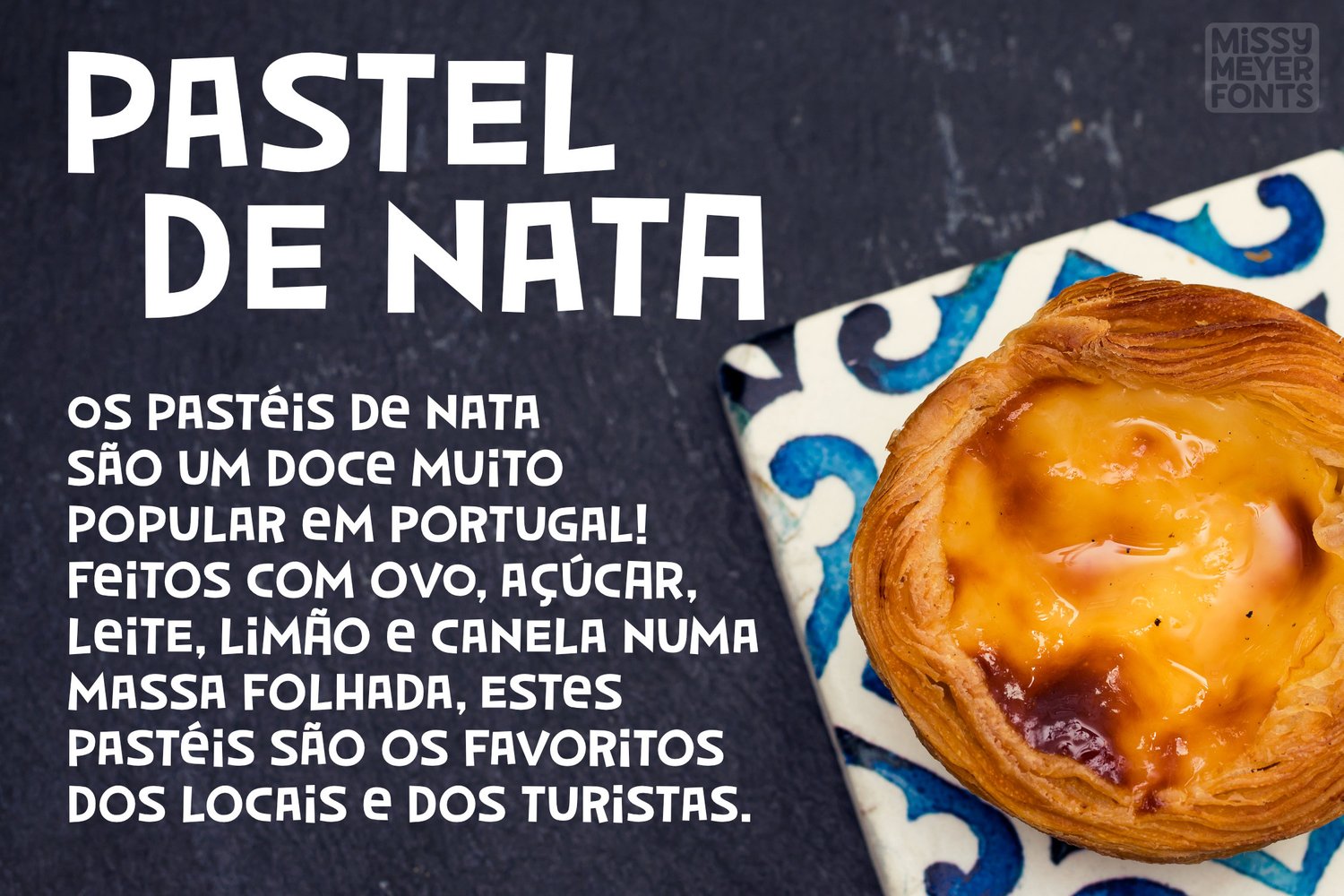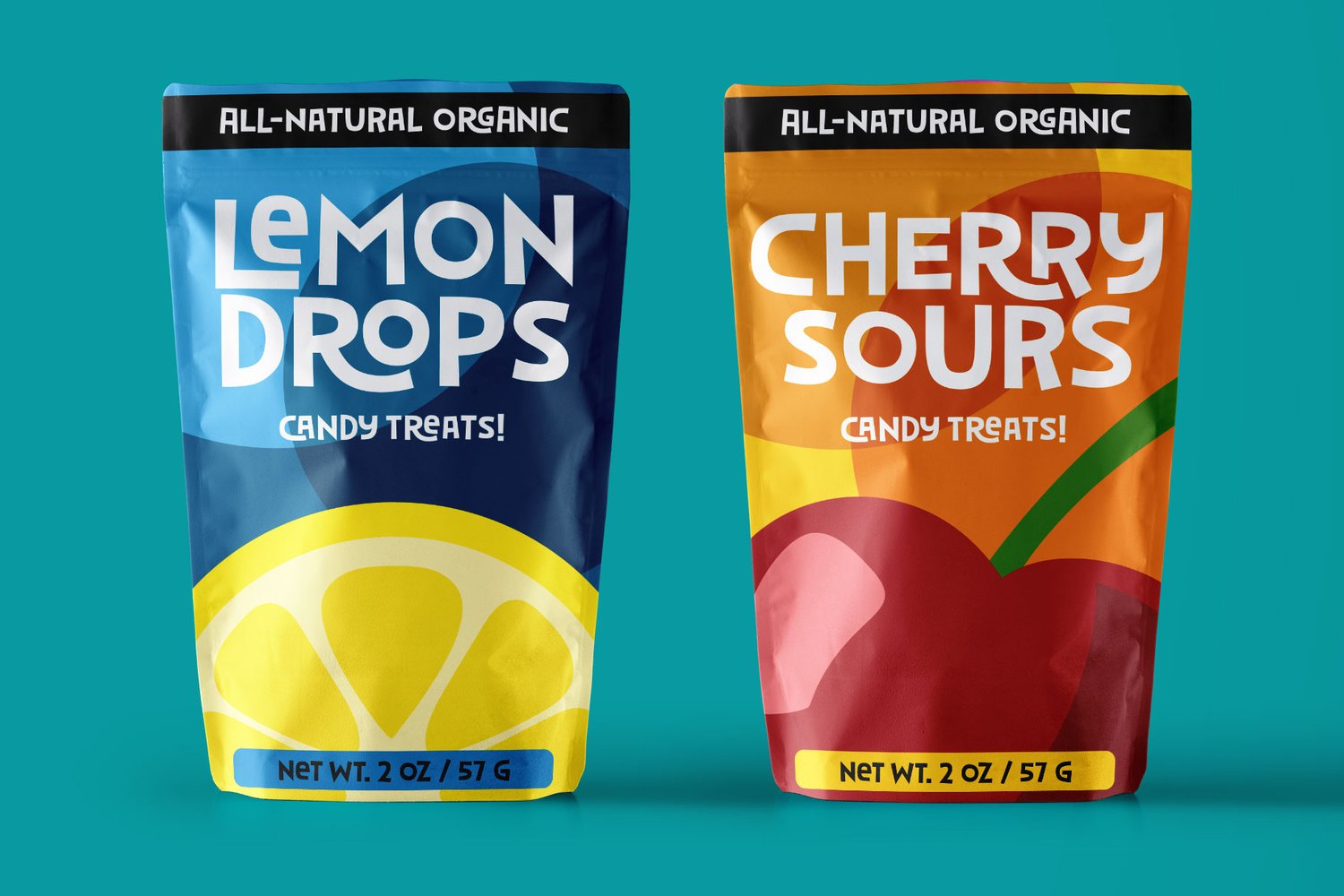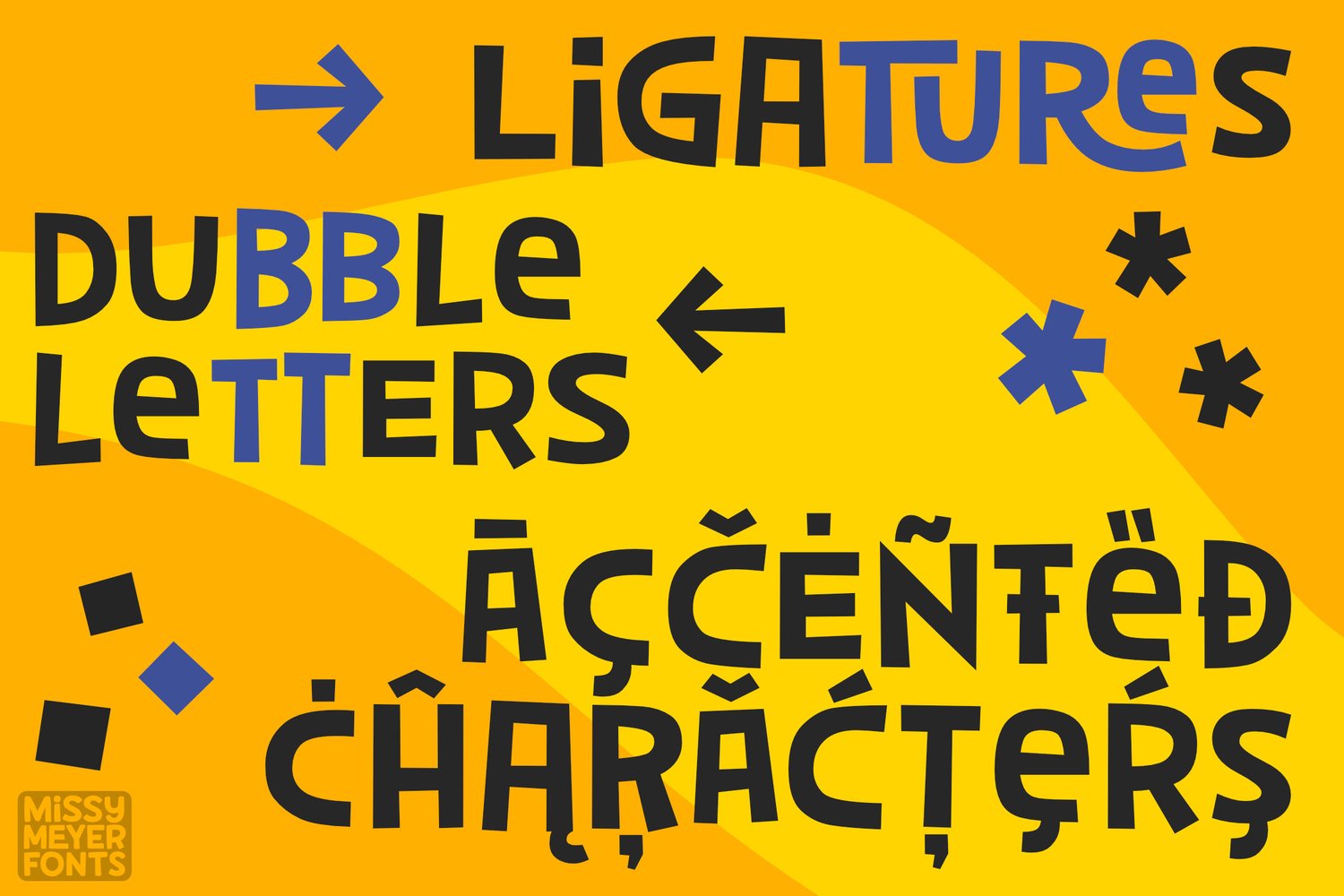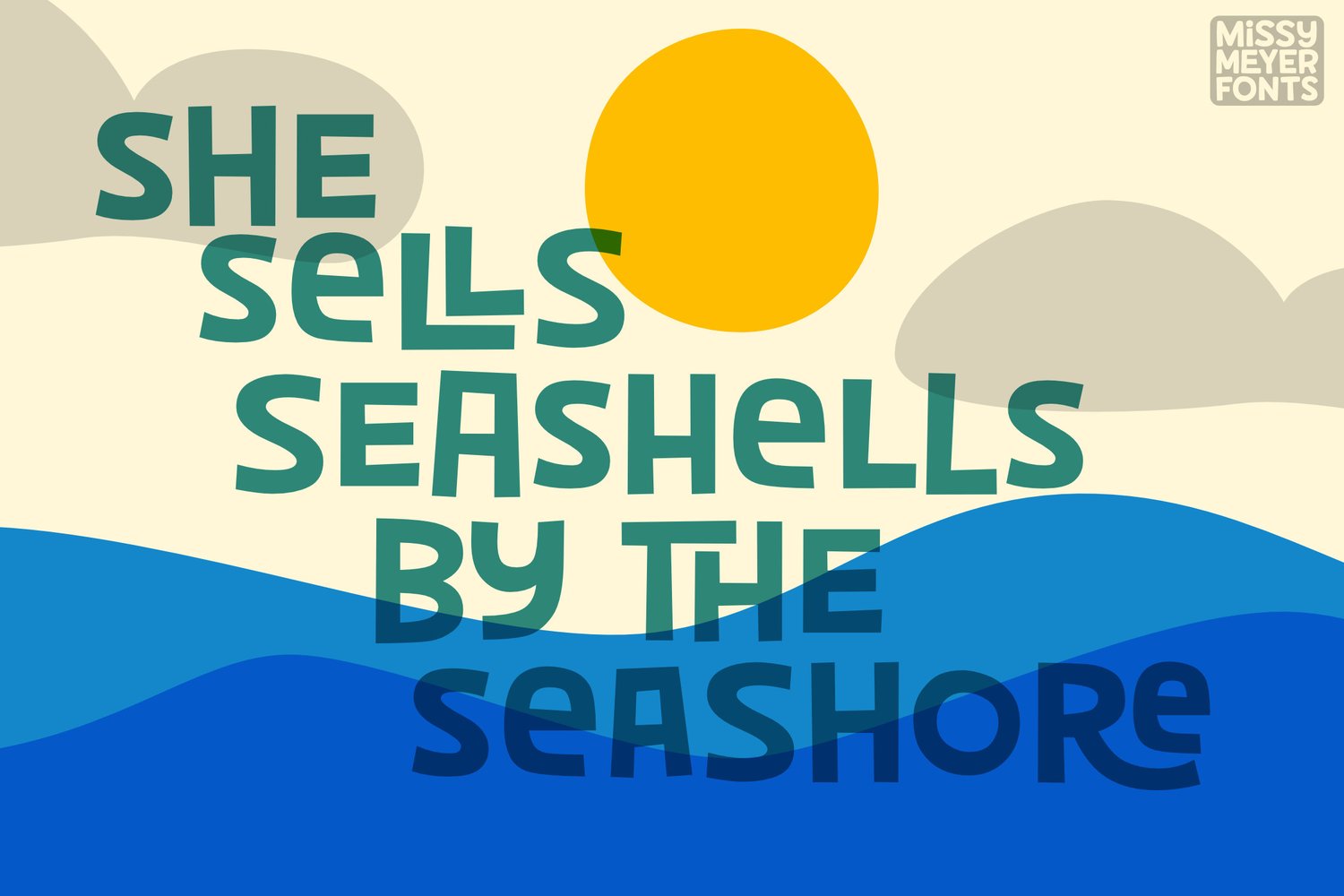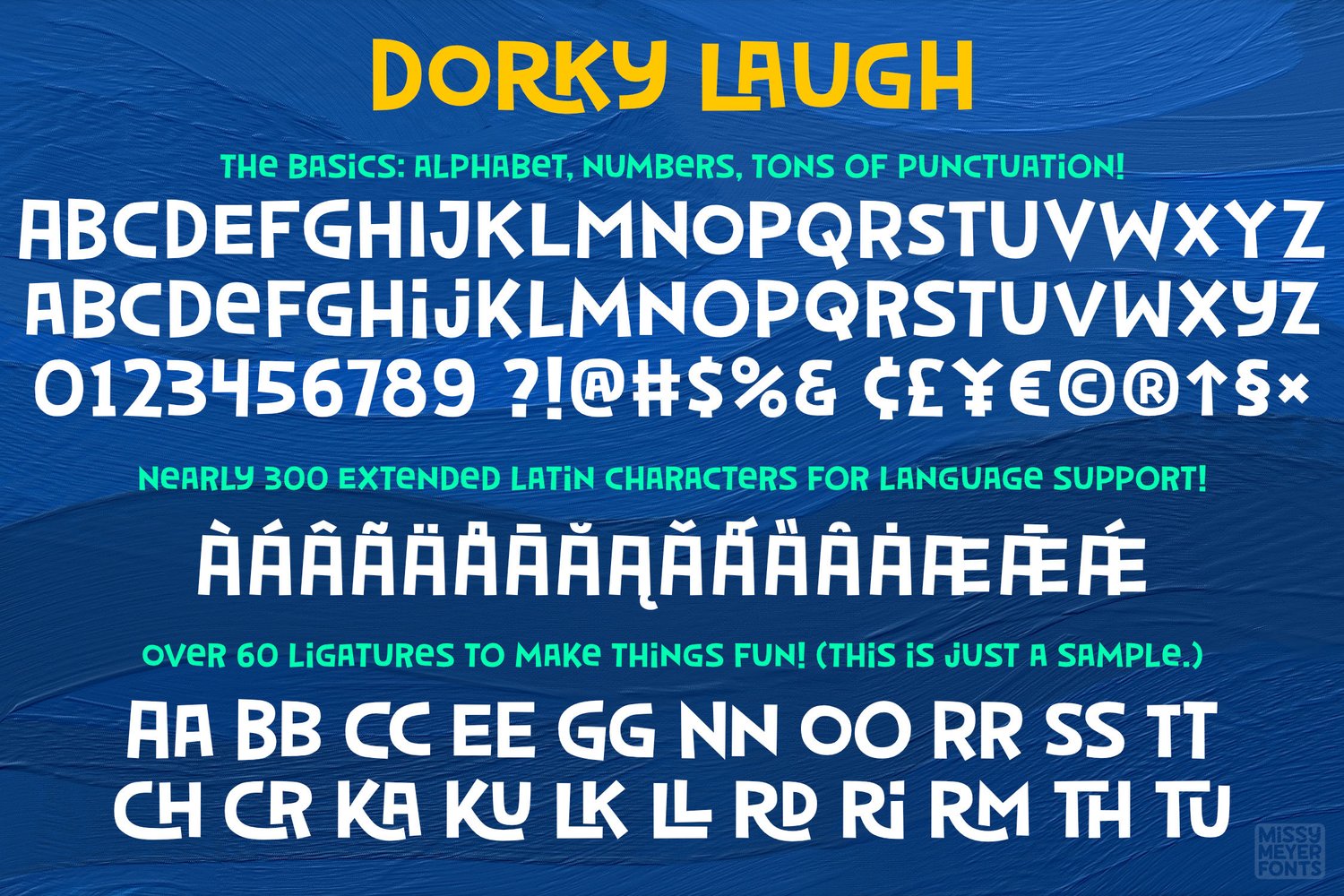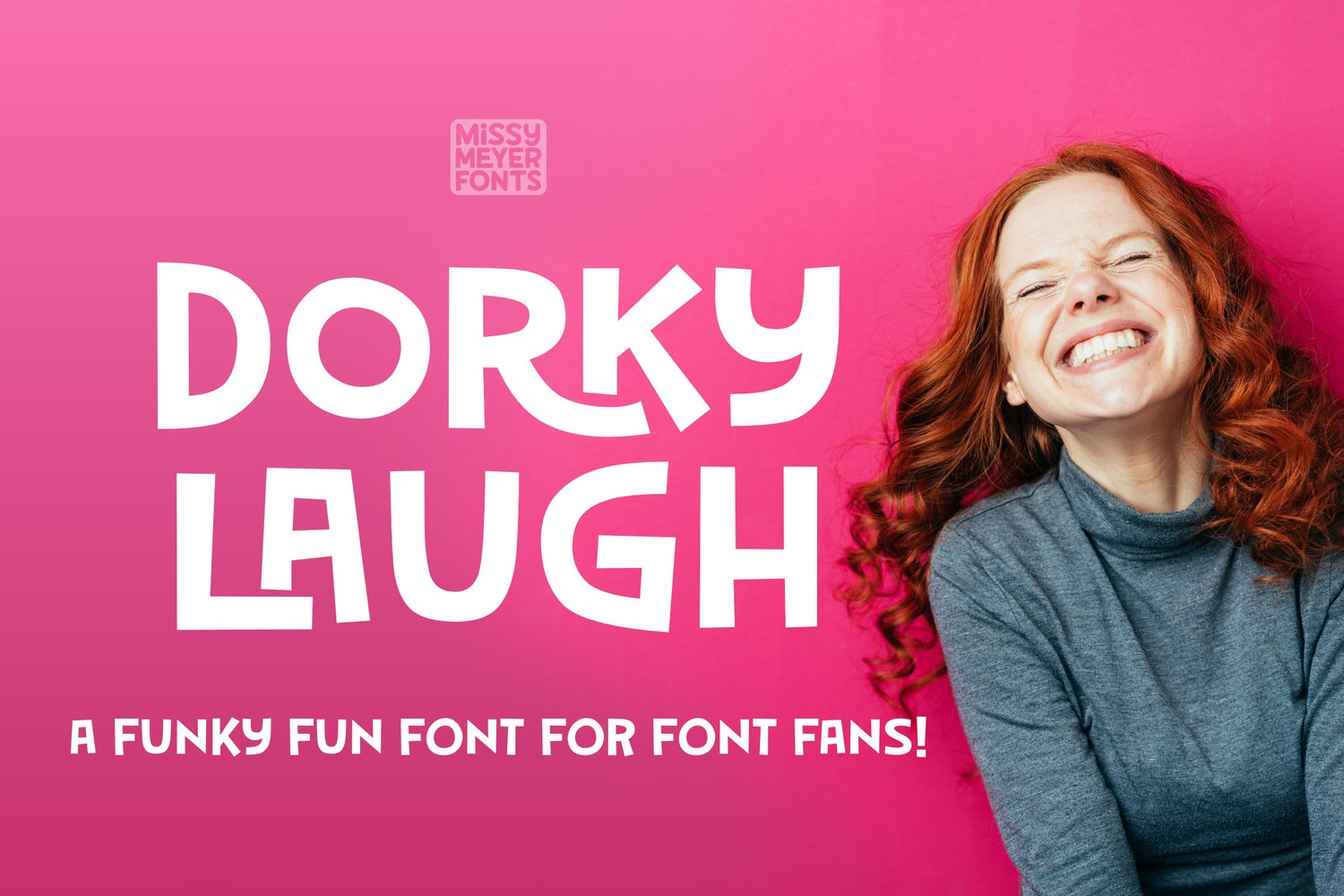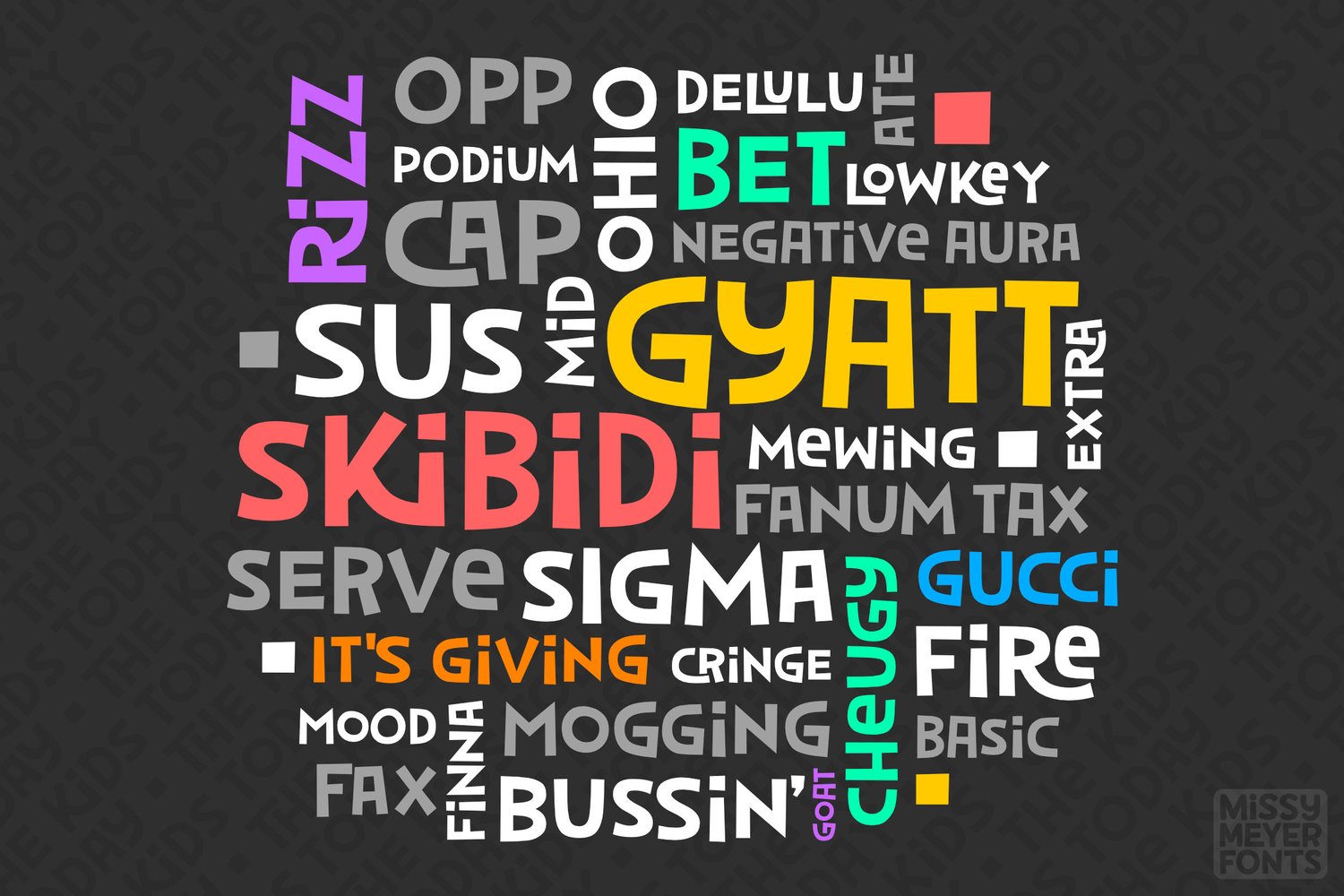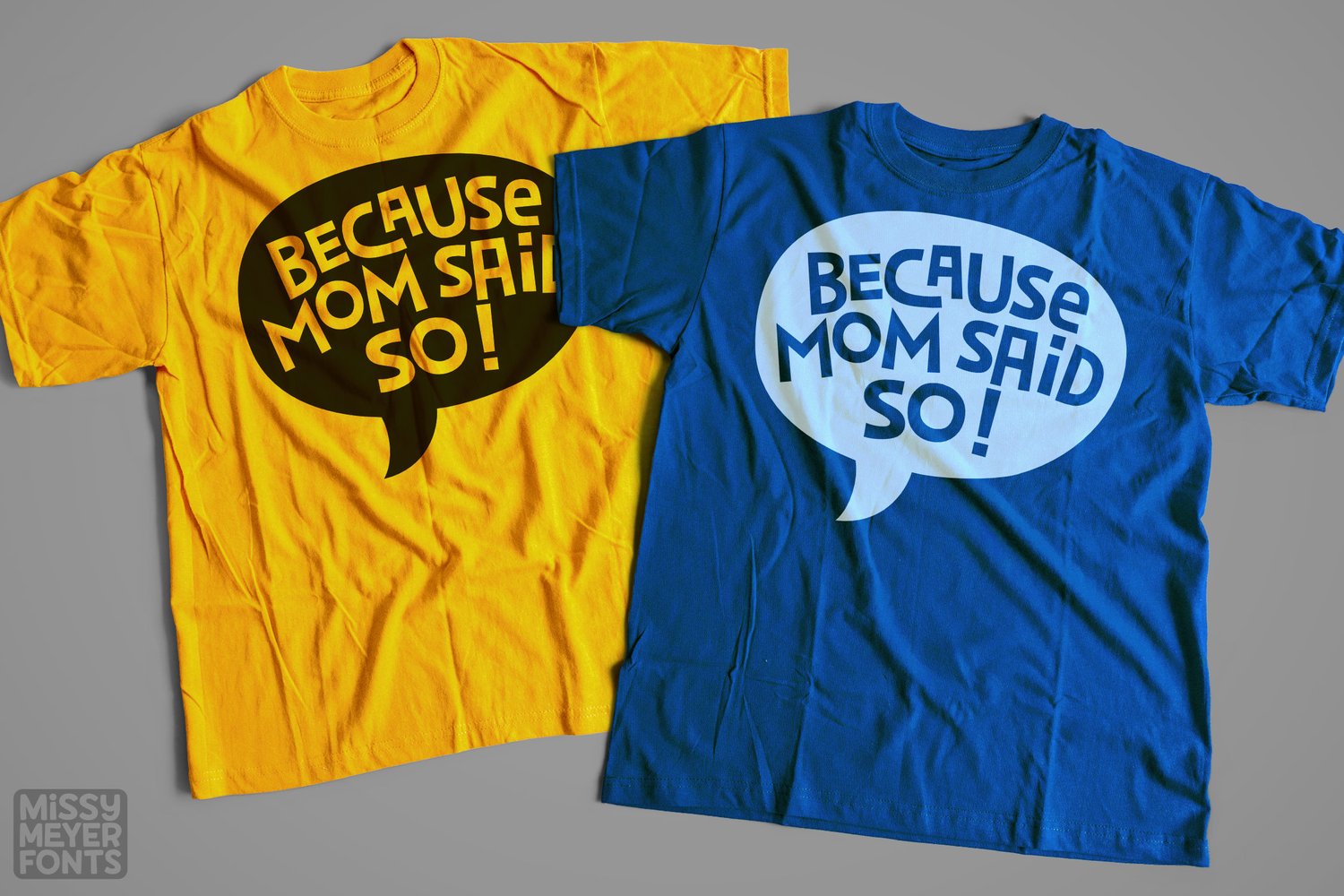
Dorky Laugh
Anyone else out there have a dorky laugh? Mine is a sort of chortle/wheeze hybrid, with the occasional snort. Which perfectly fits the vibe of this font -- silly, fun, and quirky.
Dorky Laugh by Missy Meyer is a mainly uppercase font, with a couple of lowercase characters at uppercase height to add to the fun factor. It contains all of the usual features you'd expect: basic letters, numbers, and a boatload of punctuation. I've also included over 250 accented characters for extended language support, and over 65 two-letter ligatures (both double-letter and interlocking pairs) to make things even more fun.
This font is perfect for kids' projects, but don't pigeonhole it as just a kids' font -- it's also great for branding, packaging, headlines, posters, and much much more! It's sharp and clean, with no rough spots, so it's perfect for cutting or printing at all sizes. Use it for anything where you want your reader to burst out with ... you guessed it, a big dorky laugh.